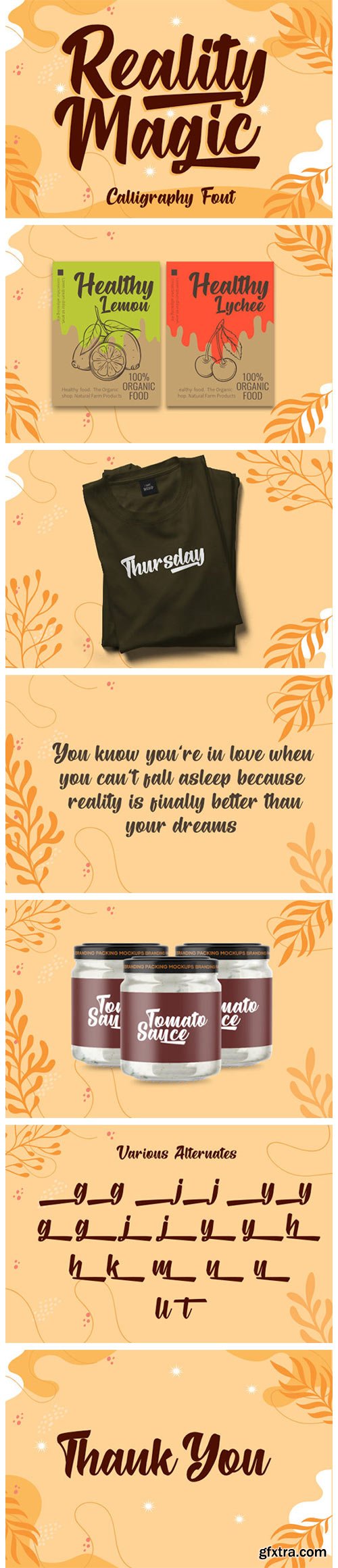
Reality Magic Font
Reality Magic is a gorgeous and bold handwritten font, crafted to give your headlines and logotype projects a stylish touch. This font reads as strong, confident, and dynamic and can add tons of nostalgic character to your designs.
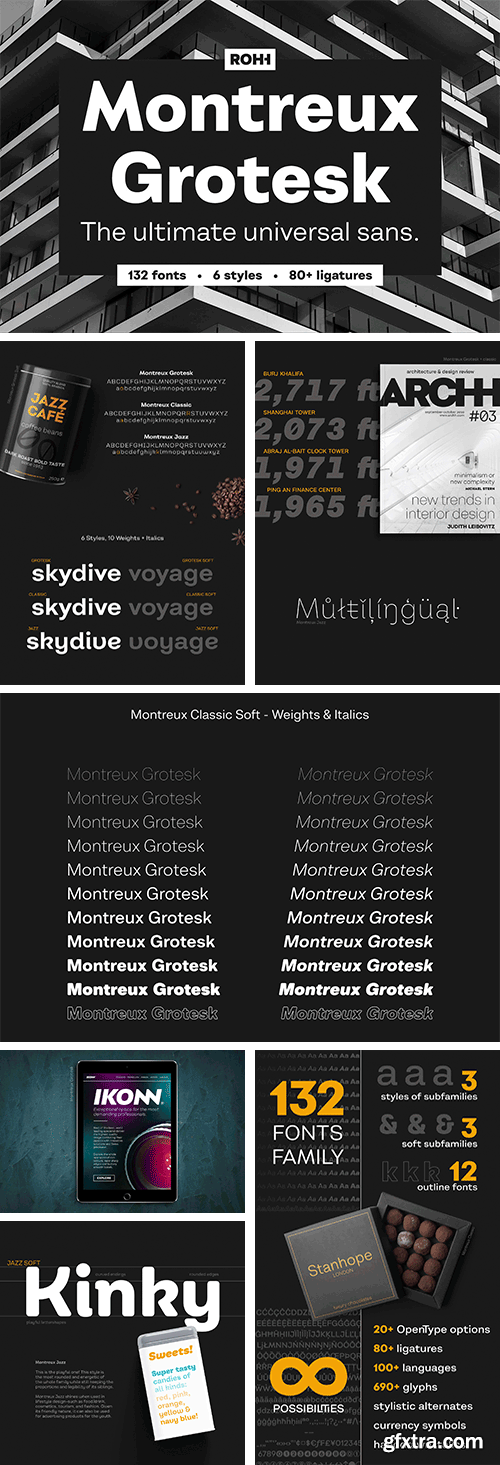
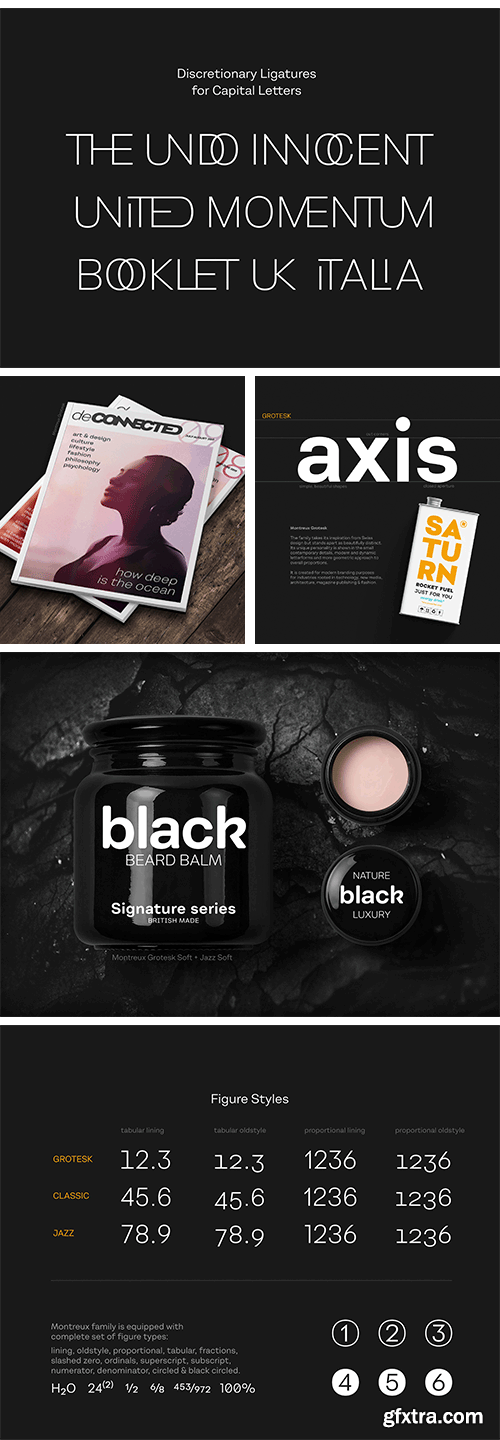
Montreux Grotesk™ is an ultra-versatile modern grotesk superfamily of 132 fonts. It takes its inspiration from Swiss design but stands apart as beautifully distinct. Its unique personality is shown in the small contemporary details, modern and dynamic letterforms and more geometric approach to overall proportions. Montreux family was designed for all contemporary branding needs. It features over 80 ligatures including broad selection of uppercase ligatures for use in logo design and creative headlines. Carefully crafted proportions and spacing give the typeface excellent legibility that make it perfect also for paragraph text as well as user interfaces.
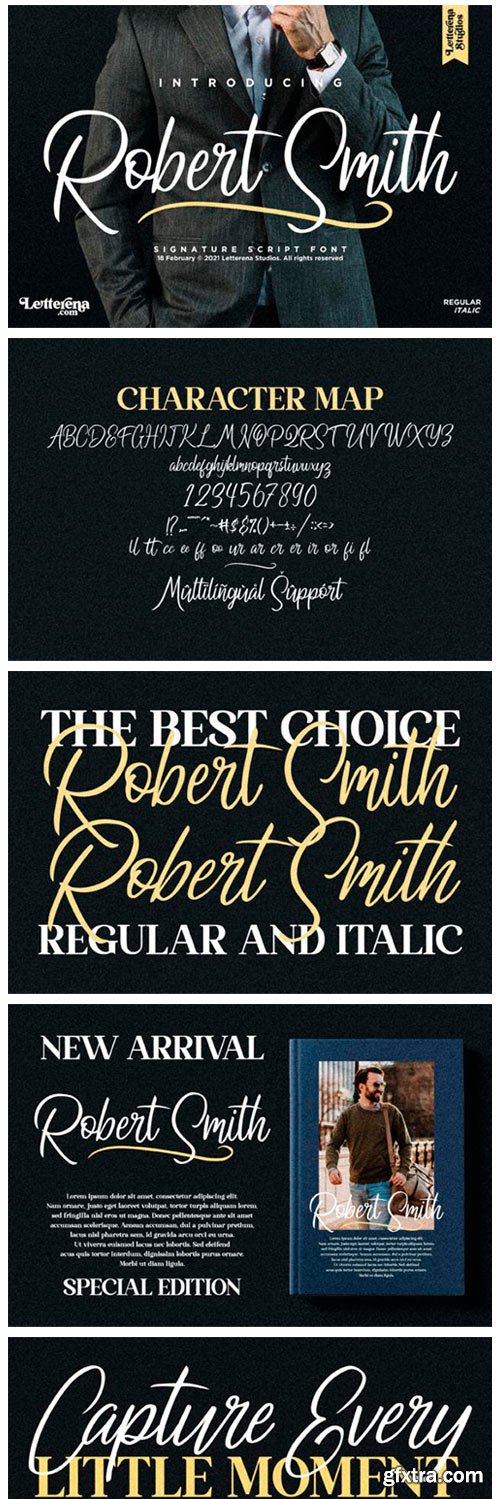
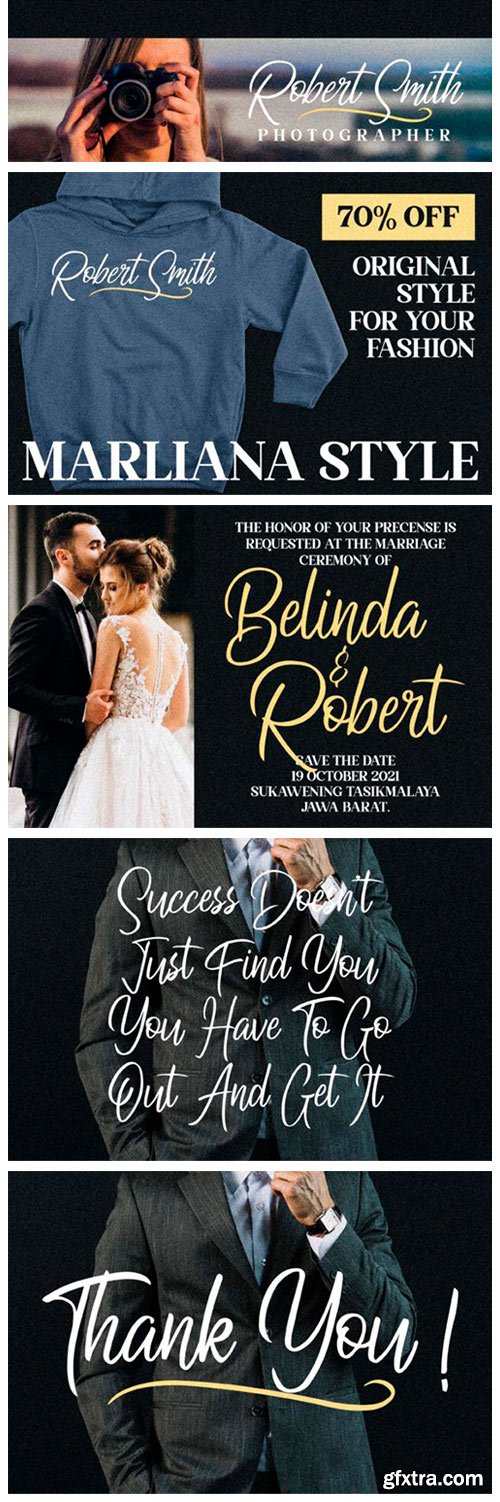
Robert Smith Font
Robert Smith is a stylish and elegant handwritten font ready to impress your audience and make your branding shine. Make your projects stand out with this elegant and wonderful font wherever you use it. Perfect for headings, logos, ads, printed quotes, packaging, and even your website or social media branding. This font is PUA encoded which means you can access all of the glyphs and swashes with ease!
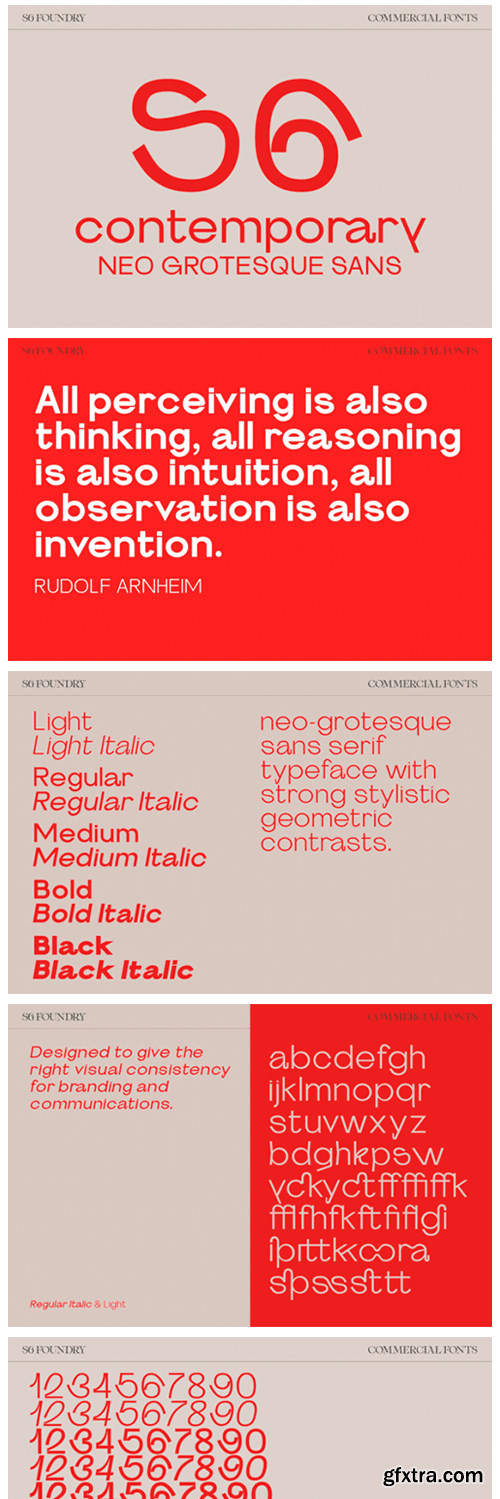
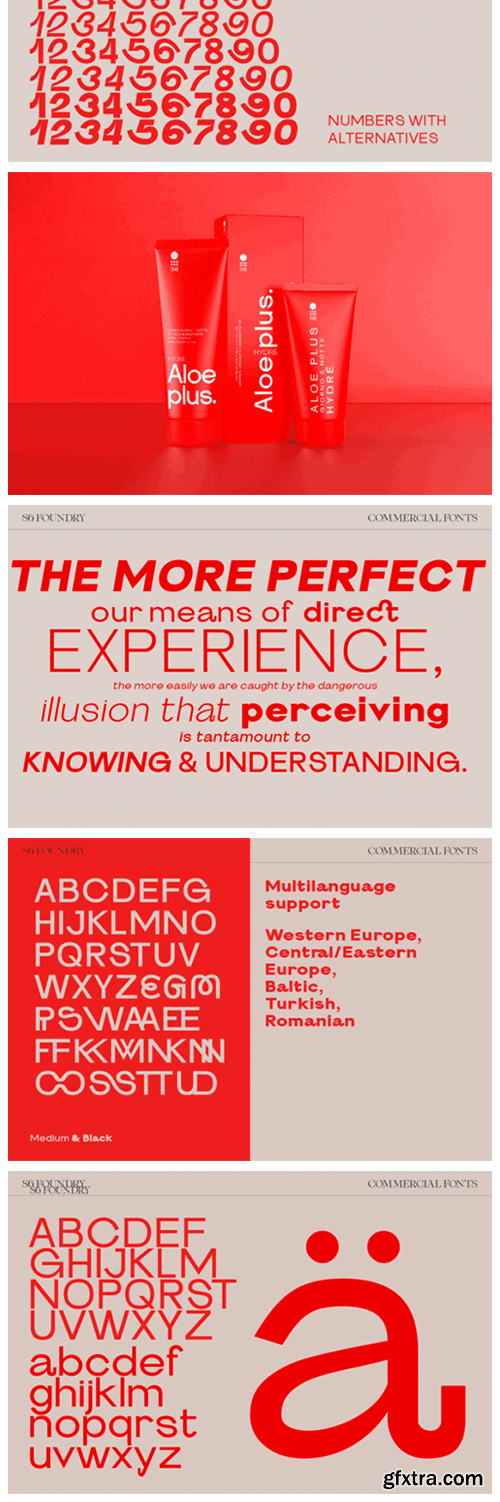
S6 Sans Font Family
S6 Sans is a minimal and neat sans serif font. It can easily be matched to an incredibly large set of projects, so add it to your creative ideas and notice how it makes them stand out!
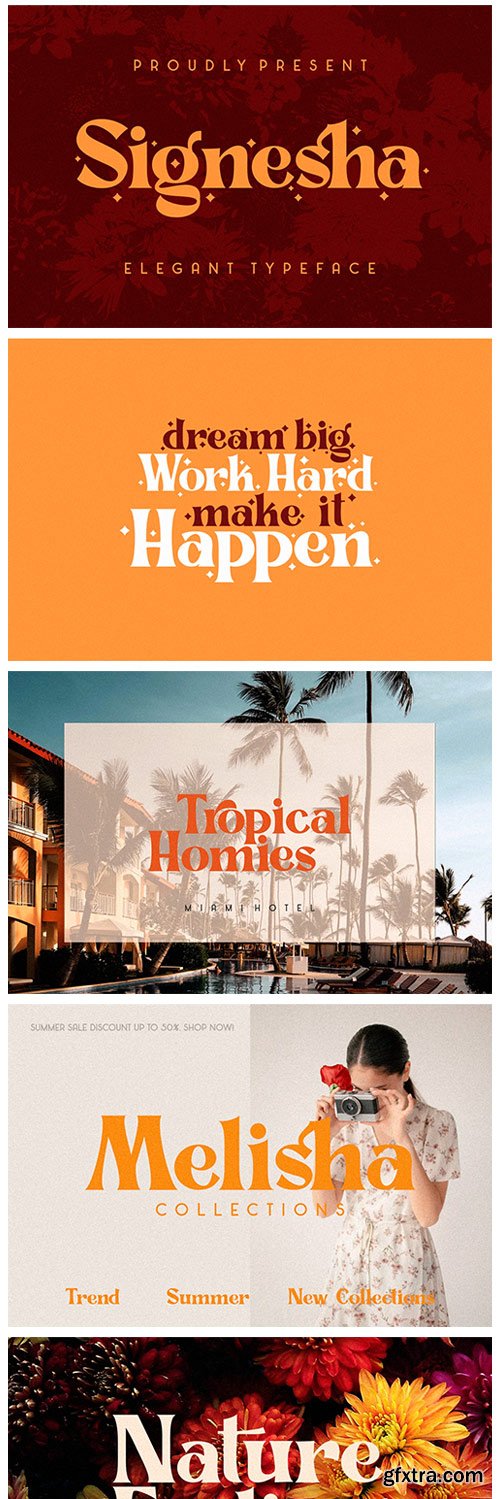
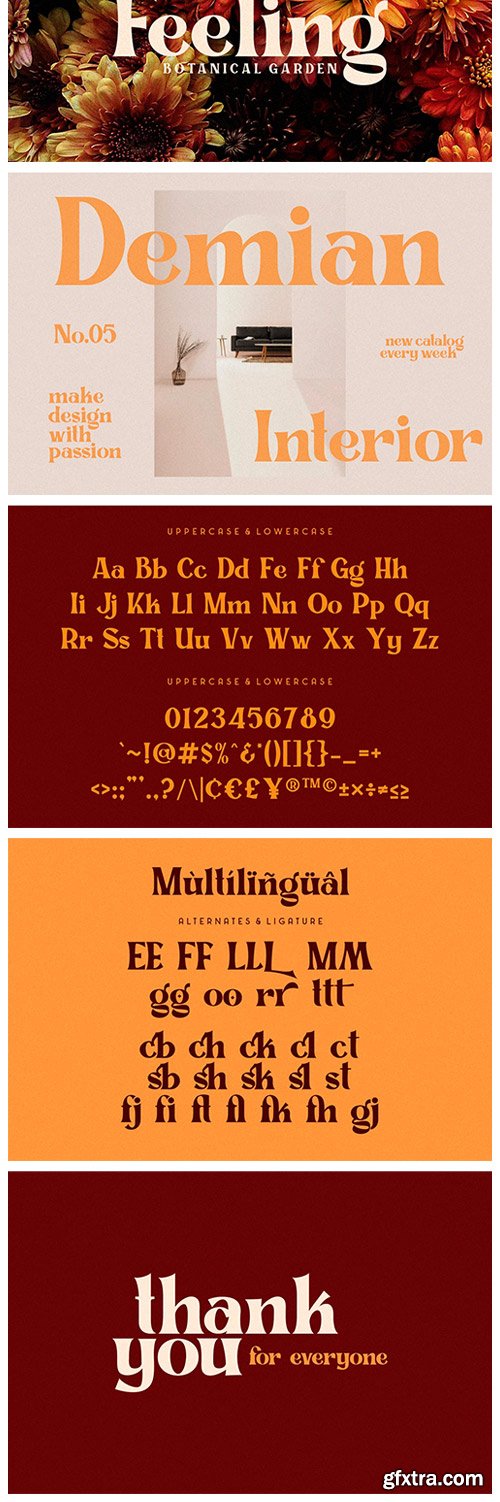
CM - Signesha Elegant Typeface 5571217
Signesha is an elegant typeface font suitable for logos, fashion, master signs, headlines, and other designs. This font supports multilingual, ligature and alternate languages.
Golden Motion Font
Golden Motion is a beautiful and flowing handwritten font with a unique feel and a stunning impact. It will add a luxury spark to any design project that you wish to create! This font is PUA encoded which means you can access all of the amazing glyphs and ligatures with ease!
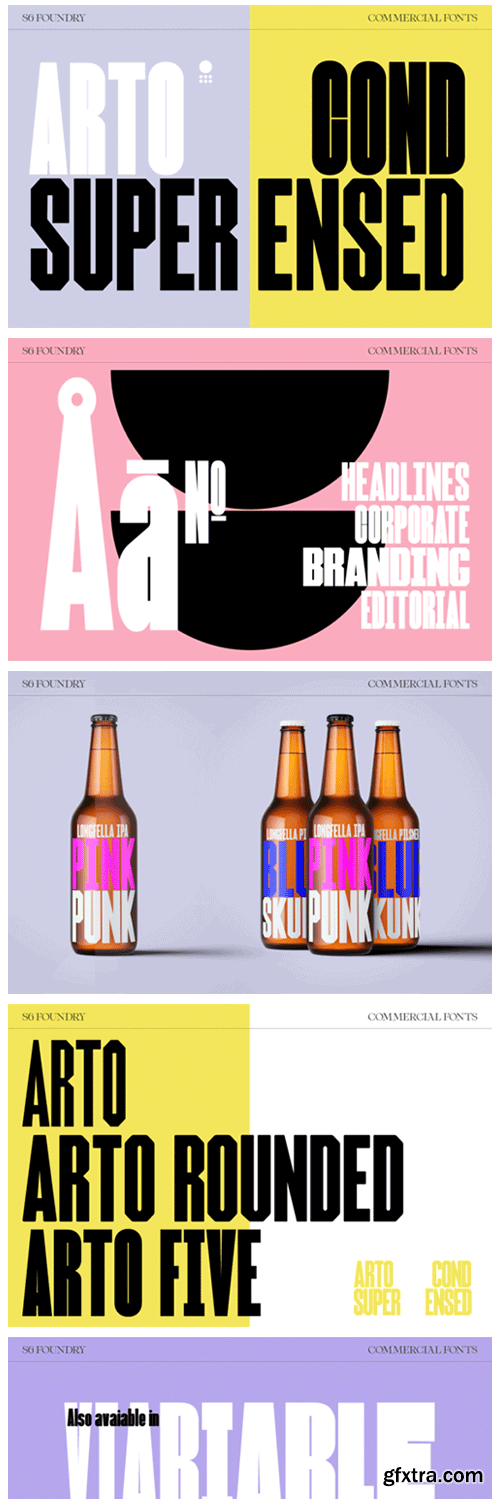
Arto Font
Arto is a bold and thick lettered sans serif font. It can easily be matched to an incredibly large set of projects, so add it to your creative ideas and notice how it makes them stand out!
Creamy Font
Creamy is a cool and friendly display font. Whether you use it for cartoon related designs, children games or just any creation that requires a lovely touch, this font will be an amazing choice.
CM - Magna | Modern Serif Font 5833773
Magna fonts includes uppercase letters, numerals, a large range of punctuation. Serif font with modern style. Created for poster, web design, branding, illustrations, badges and some other works.
Hattrick Font
Hattrick is a cool and chunky lettered display font. Whether you use it for cartoon related designs, children games or just any creation that requires a lovely touch, this font will be an amazing choice. This font is PUA encoded which means you can access all of the glyphs and swashes with ease!
Beauty Earth Font
Beauty Earth is a cool and modern serif font. No matter the topic, this font will be an incredibly asset to your fonts’ library, as it has the potential to elevate any creation.
CM - Wilyam | Modern Sans Serif Font 5833707
Wilyam fonts includes uppercase letters, numerals, a large range of punctuation. Sans serif font with modern style. Created for poster, web design, branding, illustrations, badges and some other works.
La Obrige Font
La Obrige is an unique serif font. Whether you’re using it for crafting, digital designing, presentations, or greeting card making, it’s perfect! Fall in love with its incredibly versatile style and use it to create spectacular designs!
Rafaella Signature Font
Rafaella Signature is an exquisite handwritten font, masterfully designed to become a true favorite. It maintains its classy calligraphic influences while feeling contemporary and fresh. Fall in love with it and bring your projects to the highest levels! This font is PUA encoded which means you can access all of the glyphs and swashes with ease!
Manthano Font
Manthano is an elegant and modern serif font that’ll engage your audience and make your branding stand out. This stylish font can be used in a host and different content and projects. Perfect for social media branding projects, fashion design, printed quotes, or even as a stylish text overlay to any background image and many more.
CM - Glift Font 5834037
Hello everyone! on this occasion I would like to introduce a new font, which is called "glift" This font has a modern, vintage and beautiful style.
Cherilyn Font
Cherilyn is a beautiful light handwritten font with a unique feel and a stunning impact. It will add a luxury spark to any design project that you wish to create! This font is PUA encoded which means you can access all of the amazing glyphs and ligatures with ease!
Afjat Font
Afjat is a cool looking and fresh display font. It is elegant yet relaxed and simple. No matter the topic, this font will be an incredibly asset to your fonts’ library, as it has the potential to elevate any creation.
Maressy Font
Maressy is a beautiful light handwritten font with a unique feel and a stunning impact. It will add a luxury spark to any design project that you wish to create!